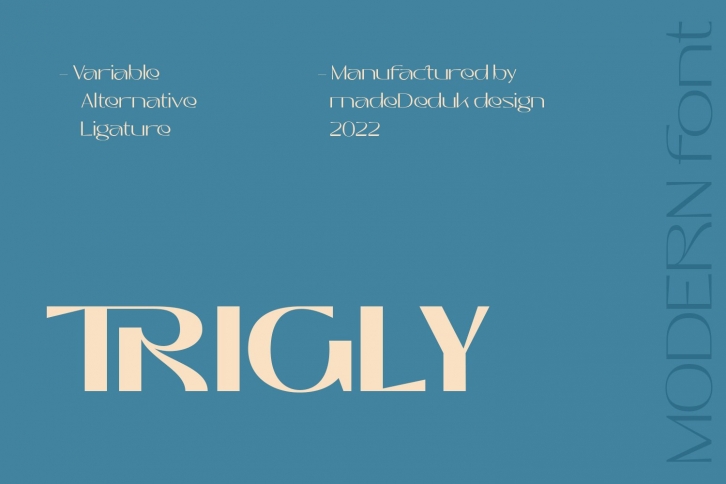
Trigly is a beautiful font that was designed by madeDeduk. It's a great choice for designers and creatives who need such a font. It was released on July 1, 2022 and the file size is 2.31 MB. Trigly may give a more youthful, expressive and casual look to your project. It is a very beautiful, refined, elegant, and high-quality font.